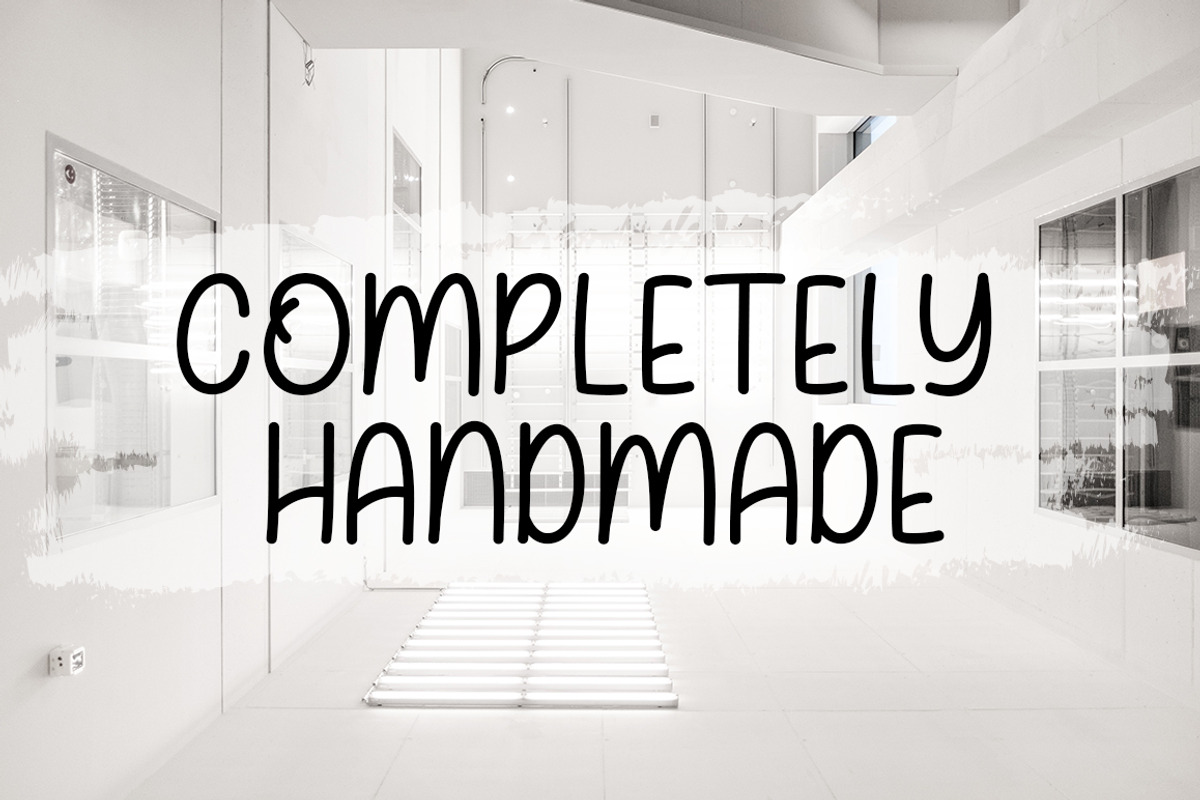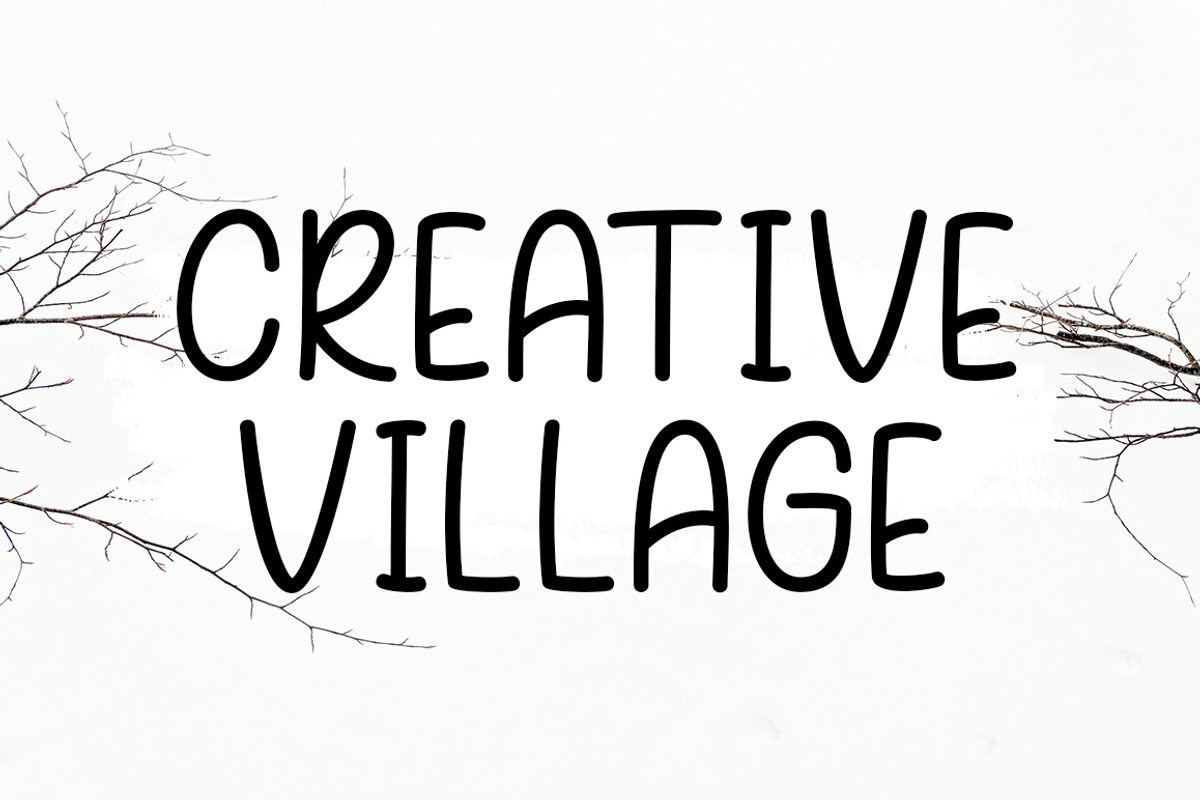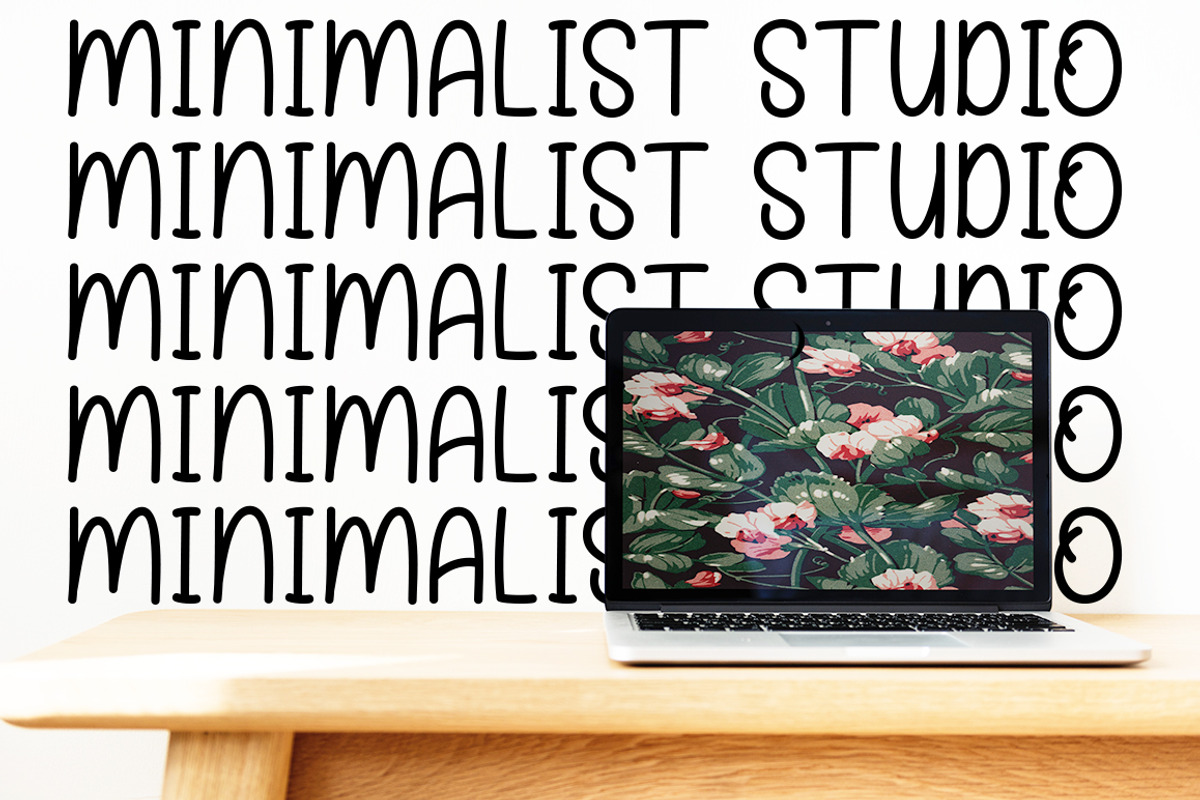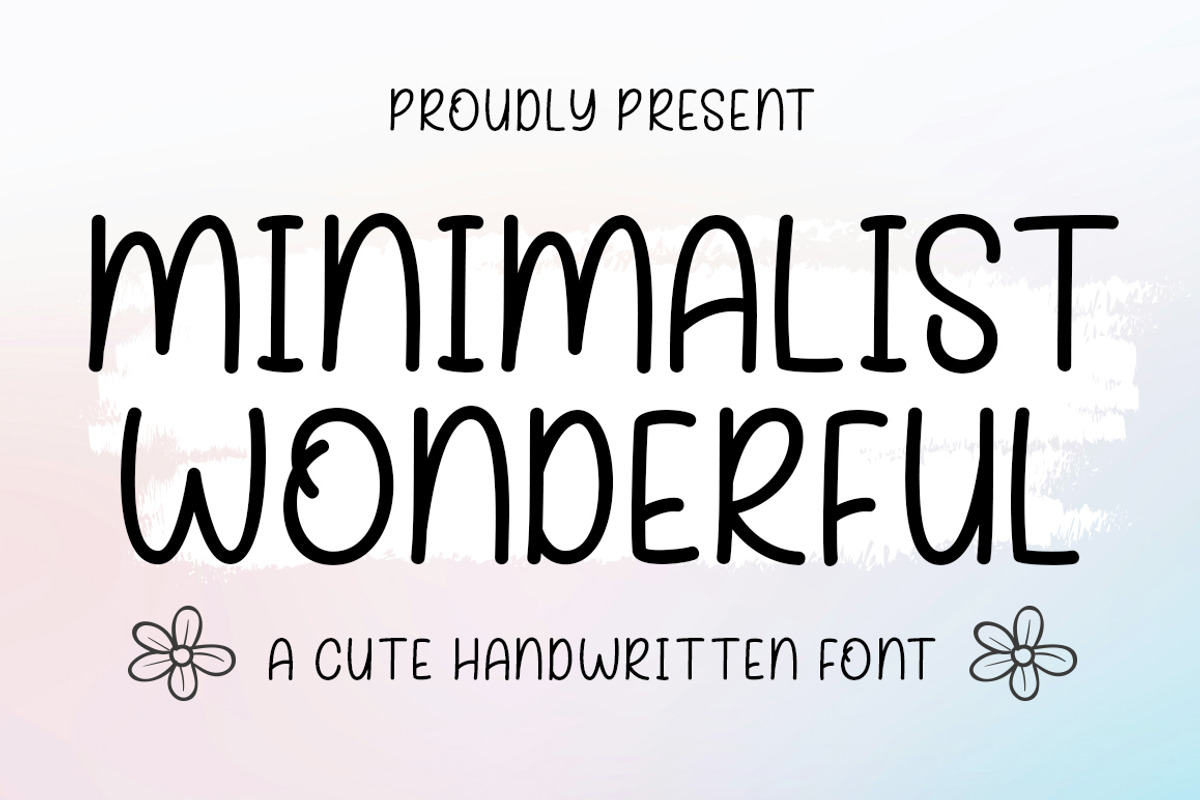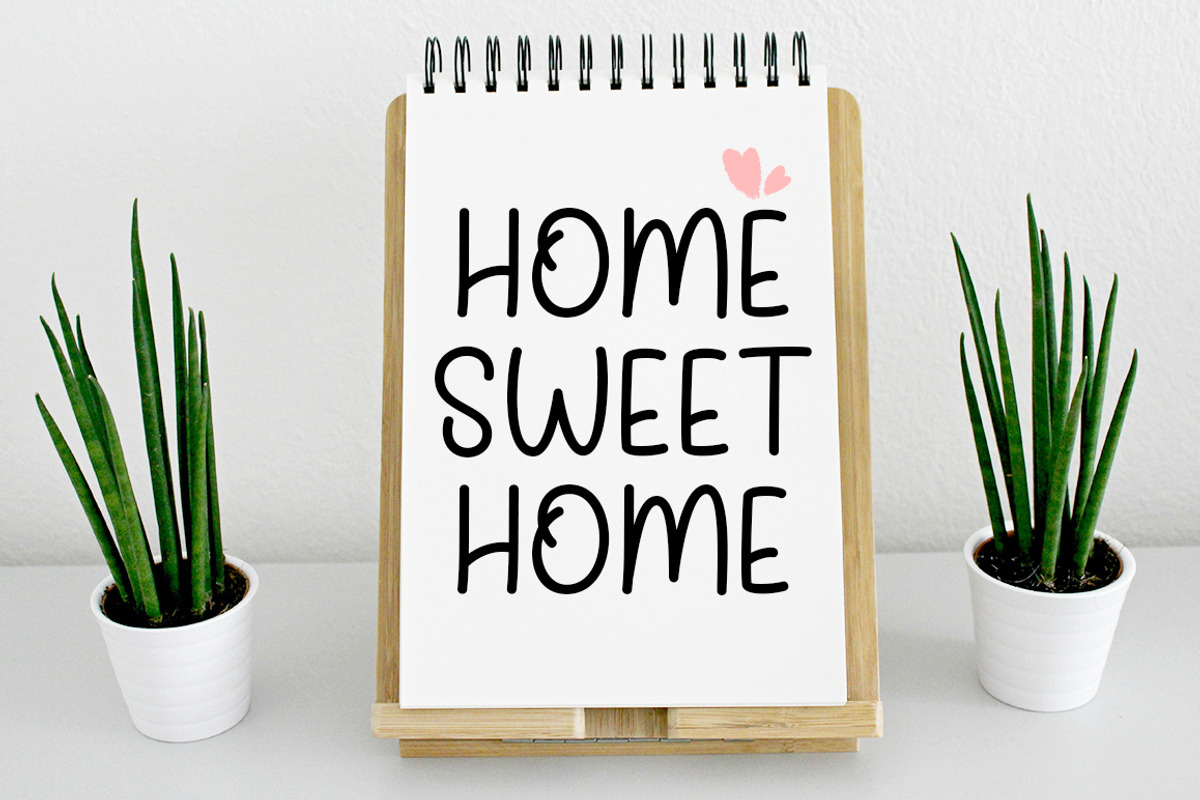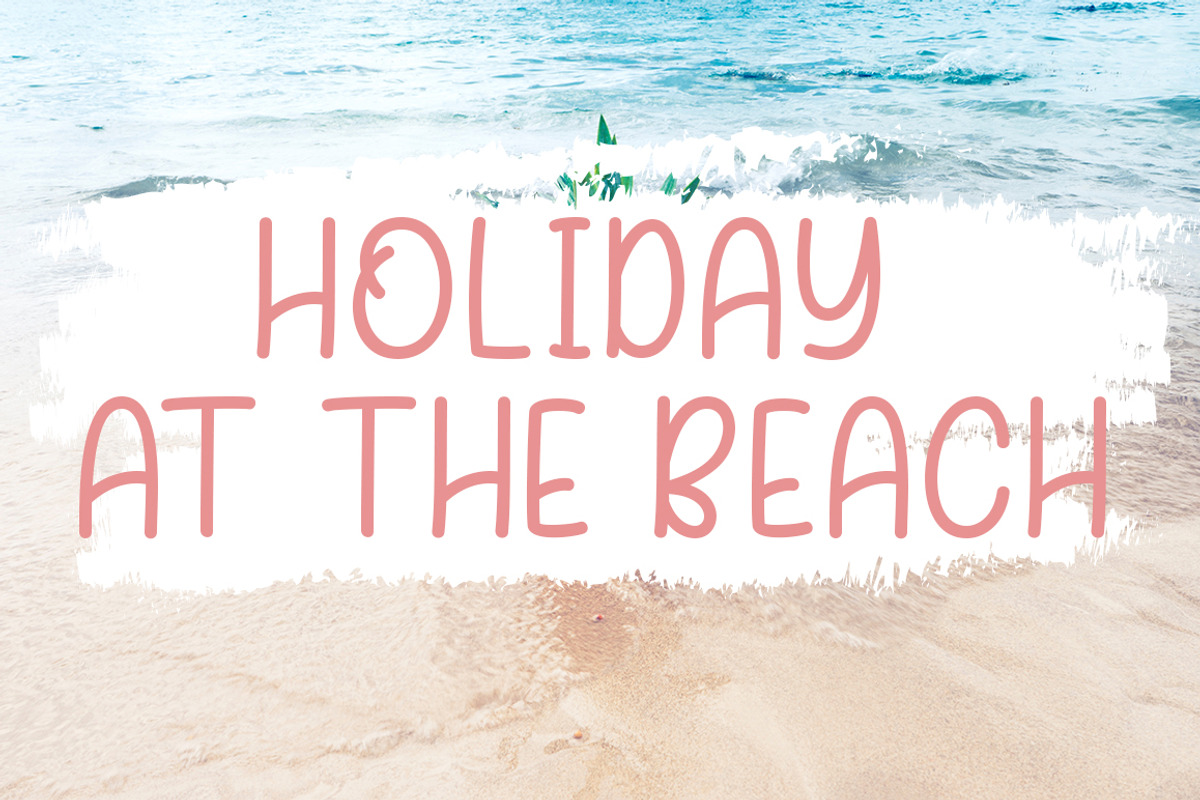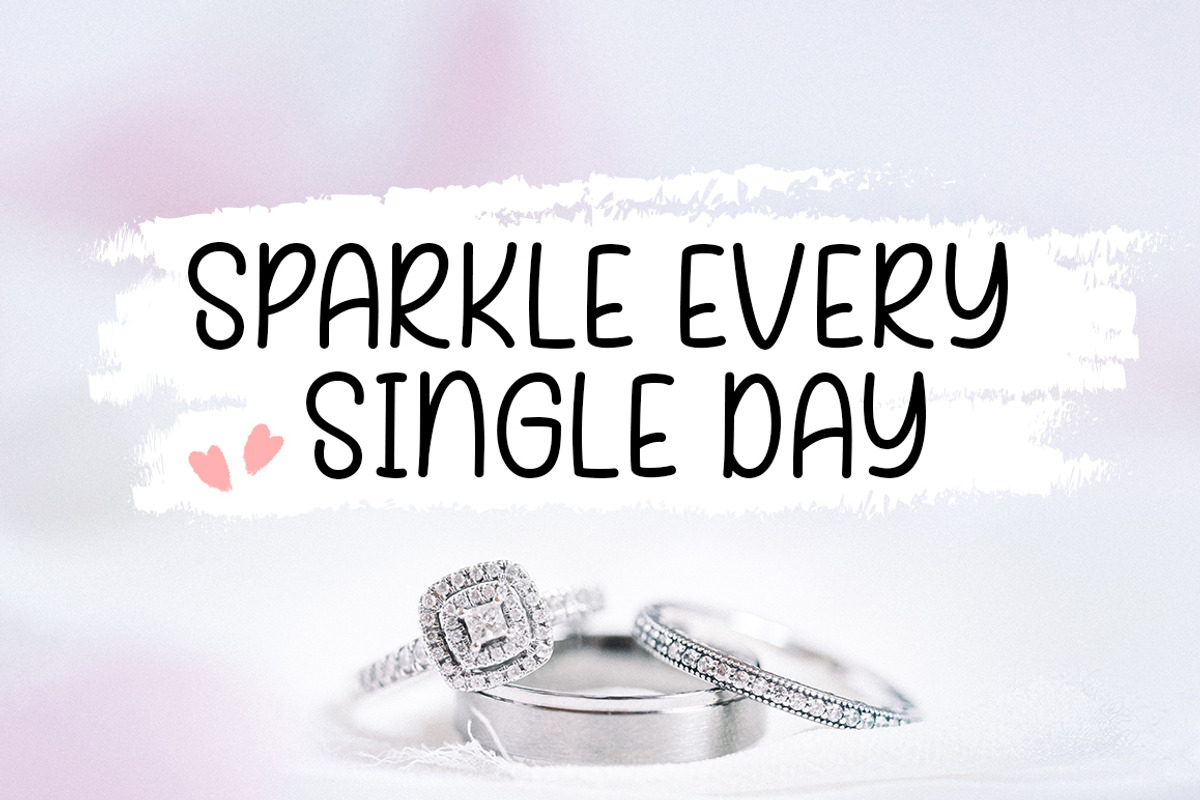
Minimalist Wonderful
Minimalist Wonderful is a tall + thin font perfect for your home decor and craft designs.
This font is especially perfect for shirt designs, country decor, farmhouse signs, websites, branding, children's designs, svg designs, blogs, logos, invitations and more!